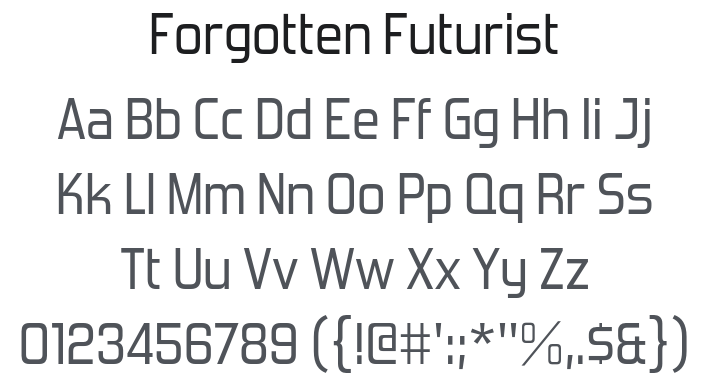
Forgotten Futurist Font Family
About Forgotten Futurist
Forgotten Futurist combines mid-century technological optimism with modern precision. Its squared forms, measured curves, and technical detailing create a clean, engineered aesthetic suited to branding, interfaces, and display design. Ten weights with italics range from light, wireframe delicacy to dense, authoritative bolds, maintaining clarity and cohesion throughout. Inspired by sci-fi manuals and industrial design, it captures a refined retro-tech spirit without nostalgia. With wide Latin language coverage, Forgotten Futurist delivers versatility and confidence for projects that balance modern innovation with timeless structure.